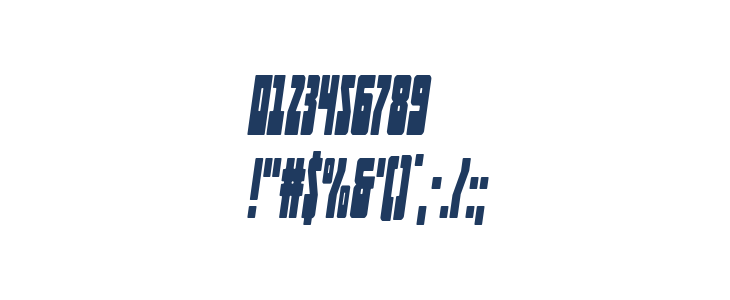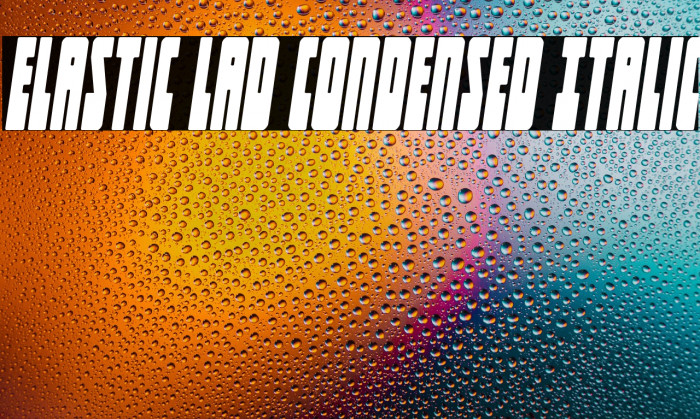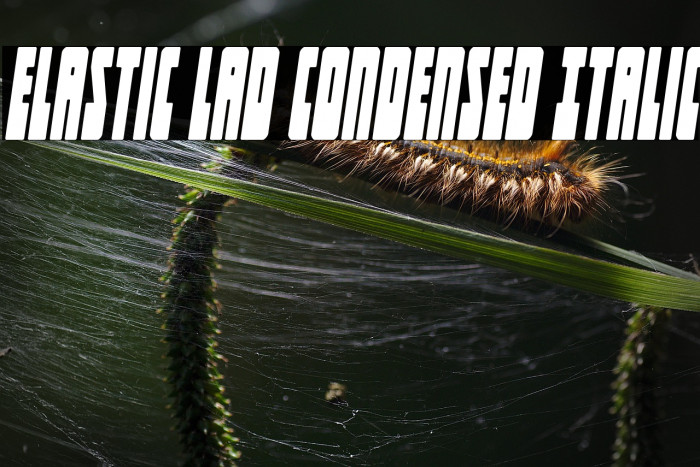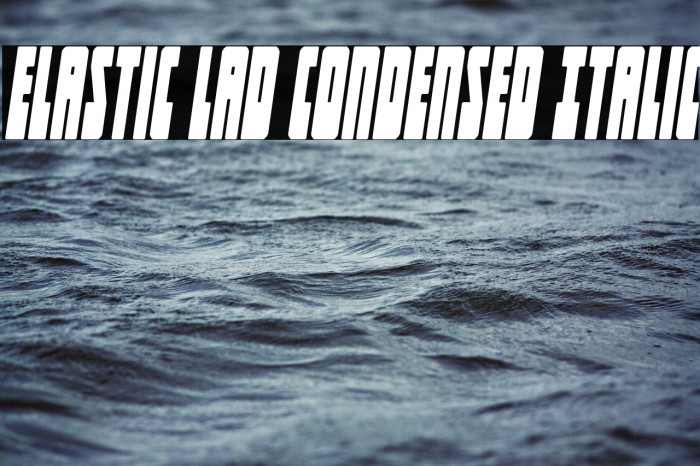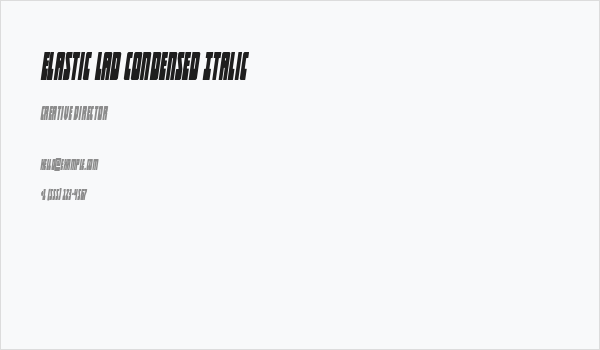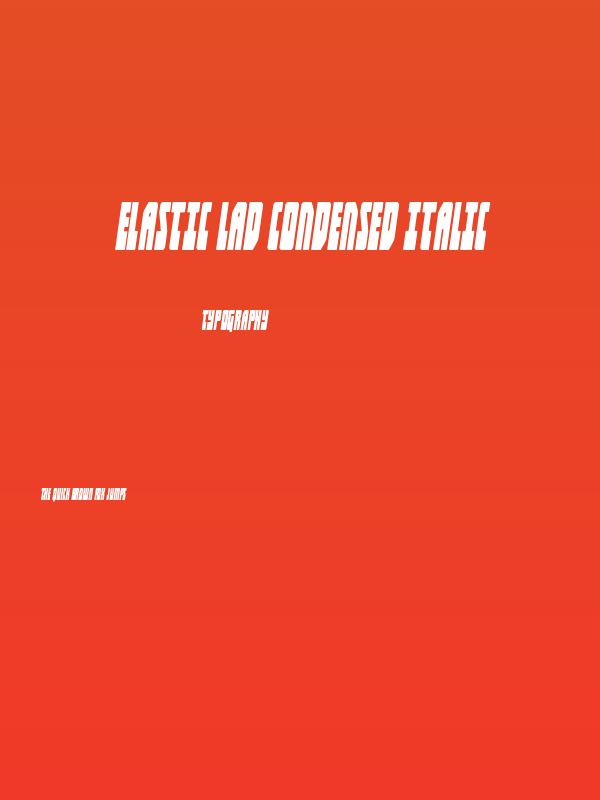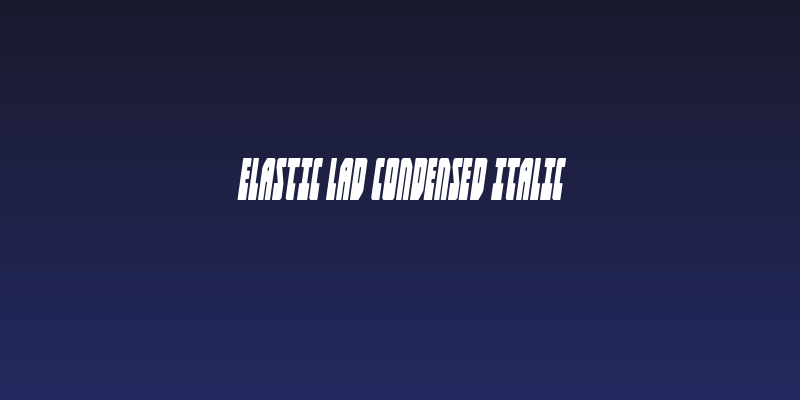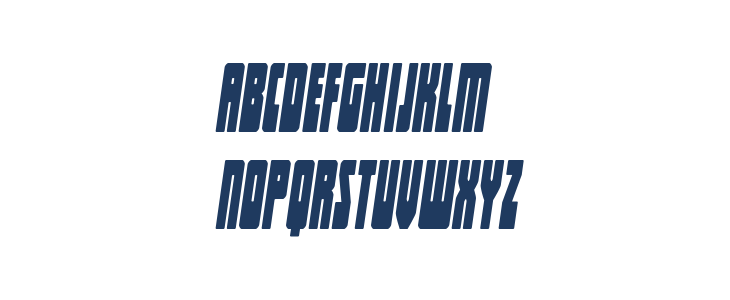
Elastic Lad Condensed Italic Font
Elastic Lad Condensed Italic Description
This font features a bold and dynamic style with a condensed and italicized form, giving it a sense of movement and energy. The characters are tightly spaced, enhancing its compact appearance. The strokes are thick and consistent, providing a strong visual impact. The angular design of the letters adds a modern and edgy feel, making it suitable for attention-grabbing headlines or titles. The font includes a full set of uppercase letters, numbers, and a variety of special characters, ensuring versatility in design applications.
| Proposed Projects | Ideal for sports branding, dynamic posters, edgy magazine covers, and modern advertising campaigns. |